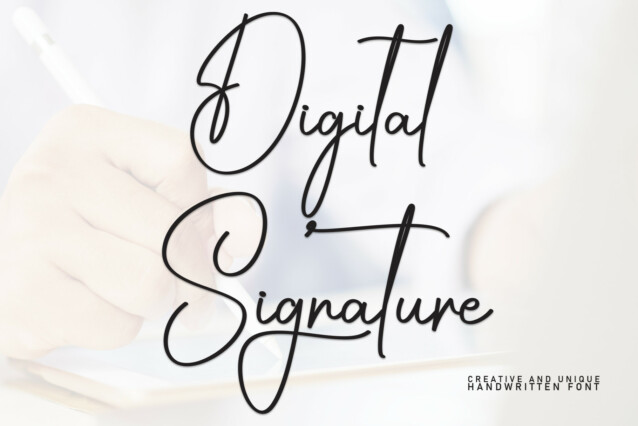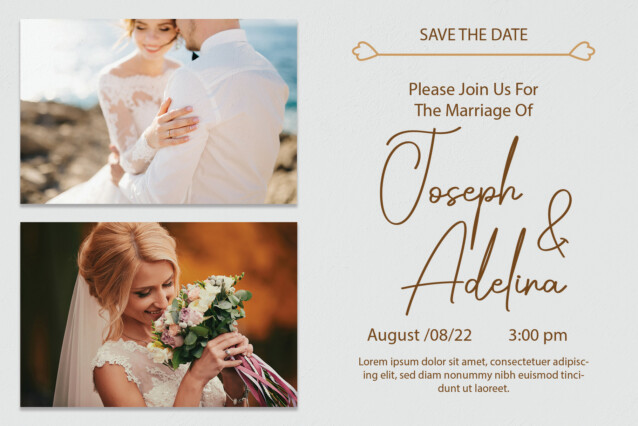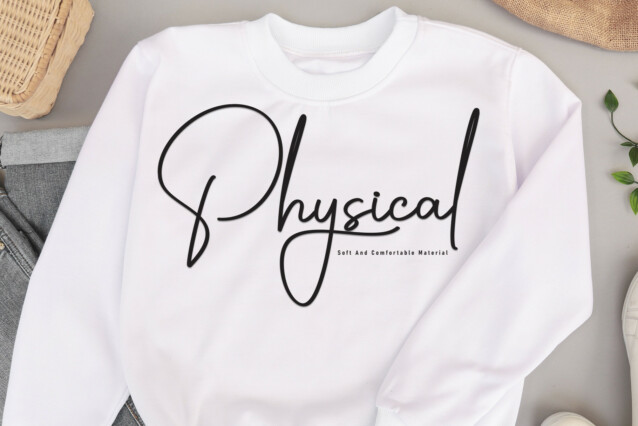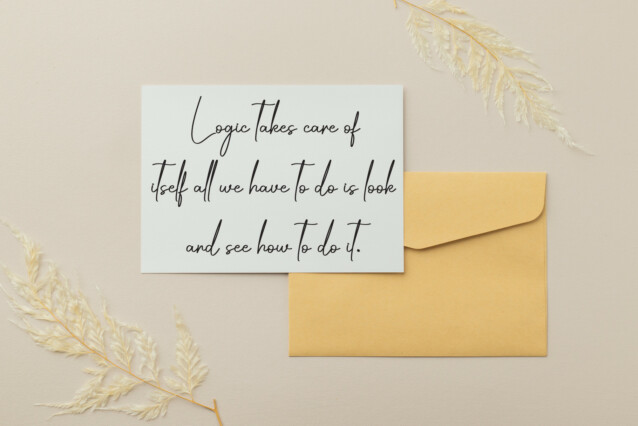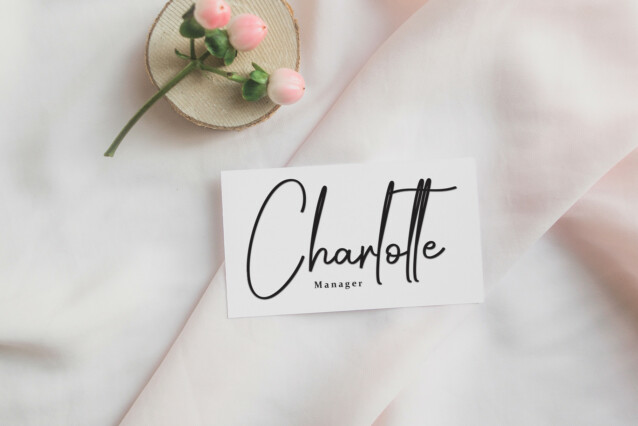
Digital Signature Font
Digital Signature Font is a signature font that’s easy to read, and simple, but still with that handwritten feel. It’s perfect for greeting cards, magazines, headers, social media, and more.